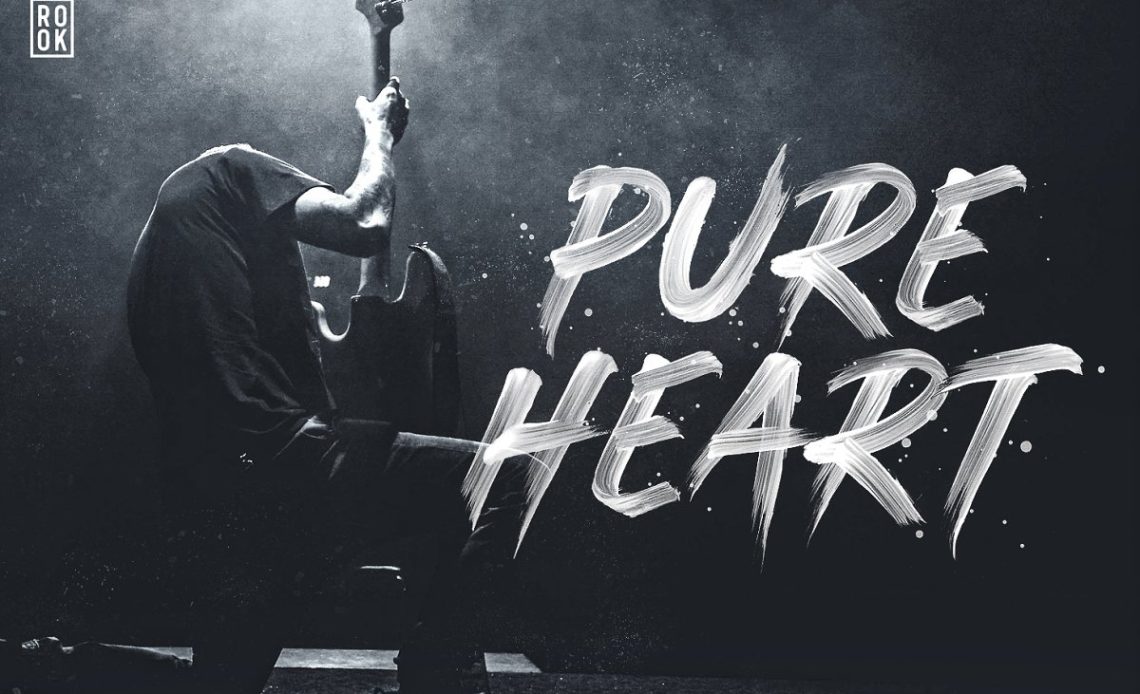
Introducing Pure Heart, an OpenType-SVG Brush Font that takes your design game to the next level. Created by Greg Nicholls, this hyper realistic font uses new technology to provide a hand-painted look, making it perfect for designers looking to create eye-catching designs.
With Pure Heart, each letter is carefully painted multiple times to ensure that the texture is just right. This new technology makes it possible to create a font that truly looks like it was painted by hand. The font comes with an OpenType-SVG file that contains all the hyper realistic effects, as well as a regular font file (TTF/OTF) for those who prefer a vectorized version.
In addition to the font files, Pure Heart also comes with brushes and swashes/splatter brushes to help spice up your designs. The font supports a wide range of languages, including French, Spanish, English, Catalan, Galician, Basque, Portuguese, Italian, Albanian, Afrikaans, Dutch, German, Danish, Swedish, Norwegian, Finnish, Faroese, Icelandic, Irish, and Scottish.